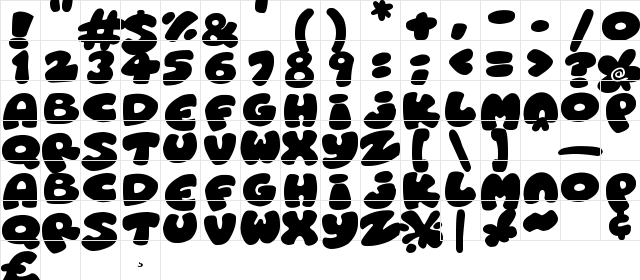
Roundish Toons Regular
Design Context for Roundish Toons
Roundish Toons softens its letterforms with rounded terminals, giving it an approachable, friendly quality that works well in consumer-facing and digital contexts.
Font Pairing: Pairs well with a rounded or humanist sans for body copy, maintaining the friendly tone without relying on Roundish Toons to carry extended reading.
Pro Tip: Use Roundish Toons for UI elements, app interfaces, and anywhere a friendly, approachable tone needs to be maintained without sacrificing clarity.